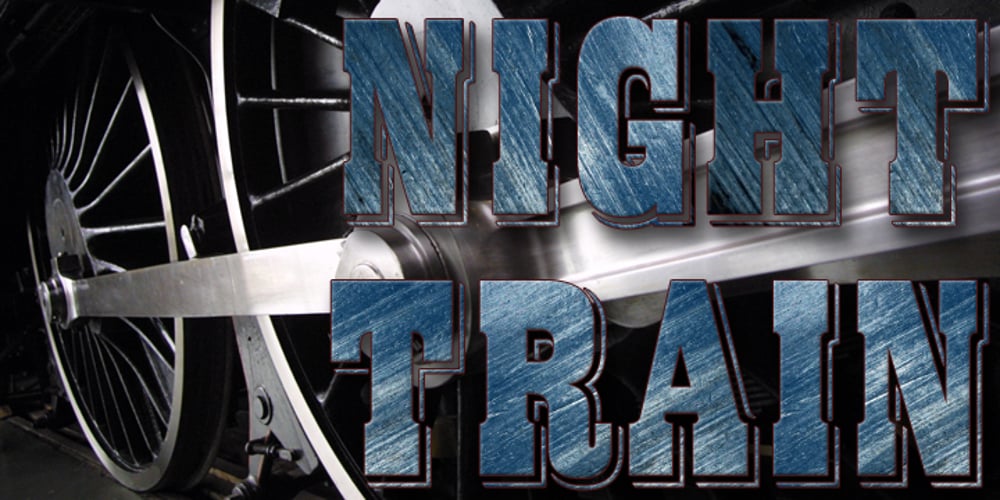
Night Train Font Family was designed by Michael Hagemann and published by FontMesa. Night Train contains 7 styles and family package options. Night Train is a new font built from the ground up; while Night Train may resemble an old classic wood type there are a few lines that make this font a little more modern setting it apart from other wood type revivals. If you’re a railroad enthusiast you’re sure to enjoy the steam locomotive graphic located on the less than and greater than keys on all versions of this font, due to the fine detail of this train illustration the best printing results will be at 600dpi or higher on a laser printer. An alternate K and R are within the Night Train fonts, for Win Type1 these alternates are on the left and right bracket keys, for Truetype and OpenType you may access the alternates by using the Character Map in Windows or Adobe Illustrator, for OpenType you may also find them on the stylistic alternates page of the glyph map in Illustrator. There’s something new with Night Train that the sign making people will love, for the first time FontMesa is pleased to offer a block shadowed version in four directions. One fill font is all that is needed for all four open faced fonts, you’ll need an application that works in layers in order to use the fill font with the open faced fonts, simply place the fill font in its own layer then move it behind one of the open faced fonts of Night Train. The Night Train name has been on my list to use as a font name for a few years, a friend from years ago used to sail his boat in the Mackinac race from Chicago to Mackinac Island, the name of that boat was the Night Train. Watching the 2010 Olympic four man U.S. bobsled team win gold with their sled also called Night Train has inspired me to complete this font.